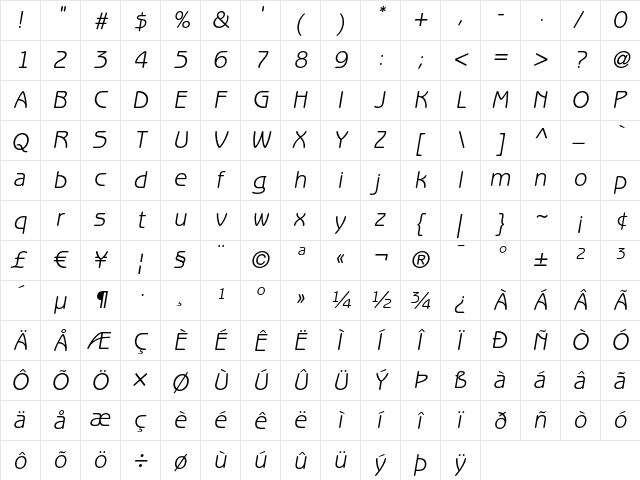
ITC Benguiat Gothic LT Book Oblique Font Preview
Design Context for ITC Benguiat Gothic LT Typeface
ITC Benguiat Gothic LT takes a clean, functional approach — its unadorned letterforms prioritise legibility and work reliably across screen and print environments. The dynamic lean of this cut emphasises speed and emphasis in any layout. The delicate stroke weight brings airiness and refinement to layouts.
Ideal for fashion and beauty branding, minimal editorial layouts, and premium digital experiences.
Font Pairing: Pair ITC Benguiat Gothic LT with a medium or bold serif for headlines — the weight contrast creates an elegant, high-end feel.
Pro Tip: Avoid using ITC Benguiat Gothic LT at very small sizes where its slender strokes can disappear. It performs best at medium to large sizes.